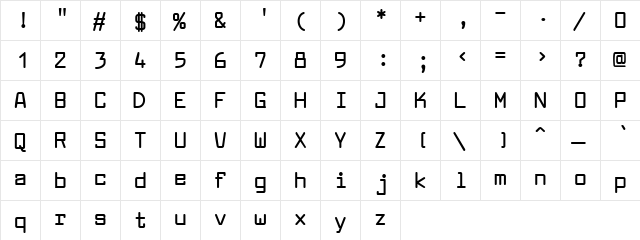
Supery Fade Regular
Design Context for Supery Fade Typeface
Supery Fade takes a measured approach to typography — its balanced proportions and neutral character make it a reliable workhorse for both digital and print work.